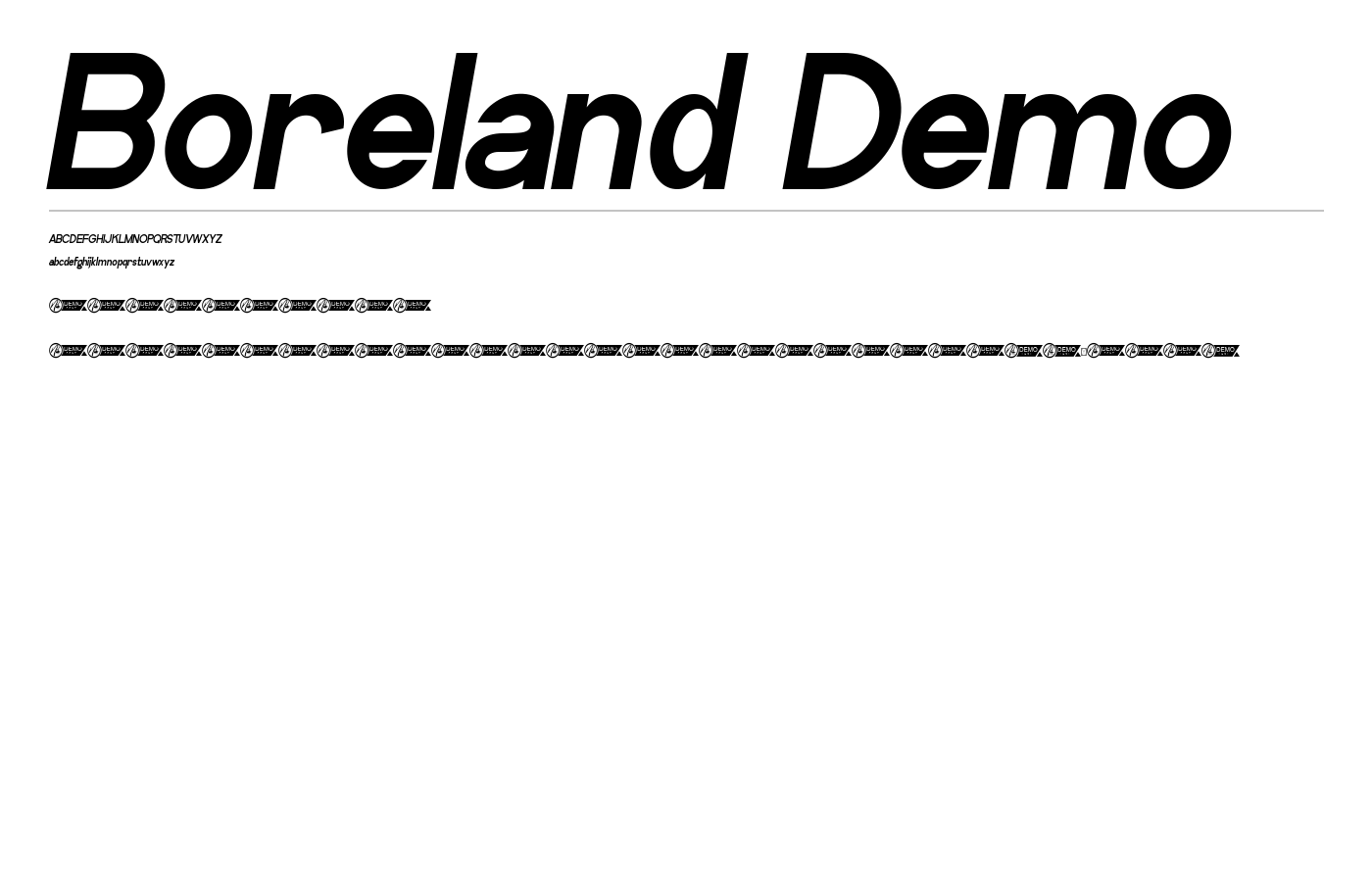
Boreland Demo is a sleek, modern sans serif font with a slightly condensed width and a dynamic italic angle, giving it a strong sense of motion and energy. Its clean, geometric shapes combined with smooth curves make it ideal for brands and designs that want to convey professionalism with a contemporary edge. This font works well for headlines, logos, and digital content where readability and a bold, confident style are key.
Boreland Demo Font
About Boreland Demo Font